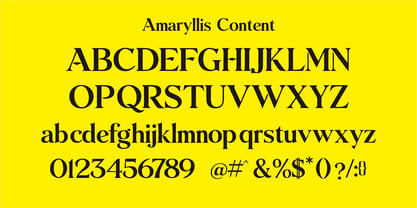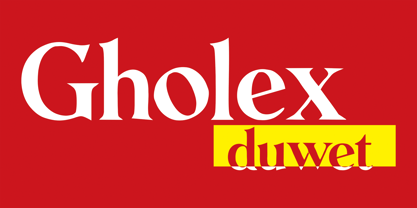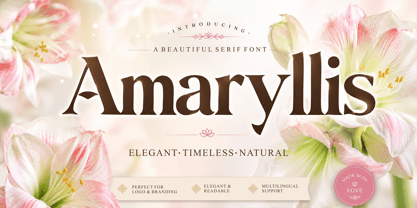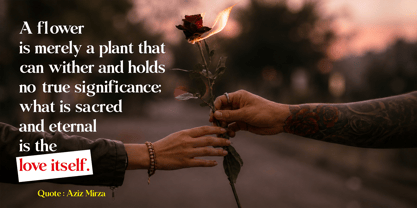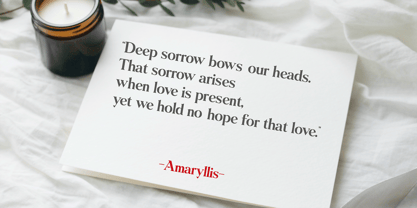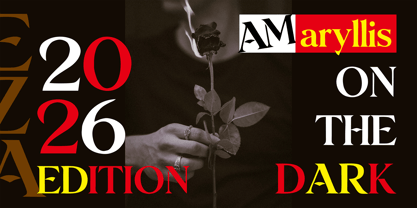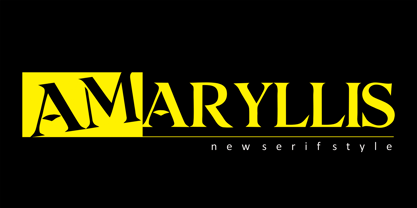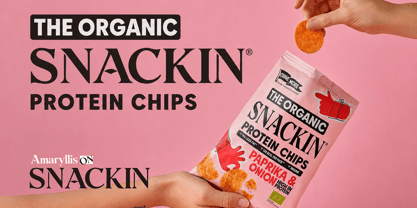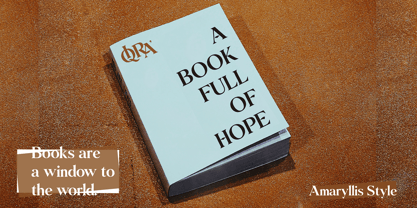
Amaryllis
by Eza Studio
The Amaryllis Font Family was designed by Aziz Mirza and published by Eza Studio. Amaryllis contains 1 styles. More about this family
AMARYLLIS — Elegant Luxury Display Serif
Amaryllis is a luxurious and elegant display serif font that blends thick-and-thin stroke contrast with sharp, artistic, and feminine letterforms. Its character draws inspiration from high-contrast fashion serif typography but features distinctive decorative details that set it apart.
Amaryllis Characteristics:
-High contrast between bold main strokes and ultra-fine hairlines.
-Sharp, pointed serifs with distinctive geometric cuts.
-Uppercase letters feature dramatic, tall, and sophisticated forms.
-Lowercase letters appear graceful, soft, and decorative.
-A blend of classic and modern styles.
-Striking letterforms that make it ideal as a display font.
-Retains its elegance whether used at large sizes or in logos.
-Evokes a sense of luxury, fashion, beauty, weddings, and editorial style.
Designers: Aziz Mirza
Foundry: Eza Studio